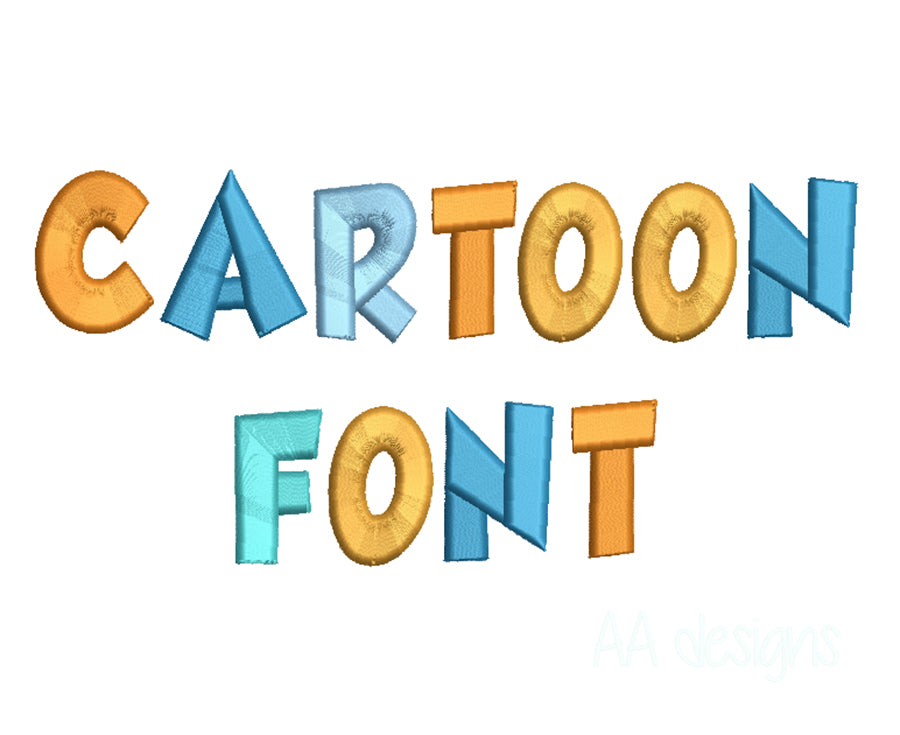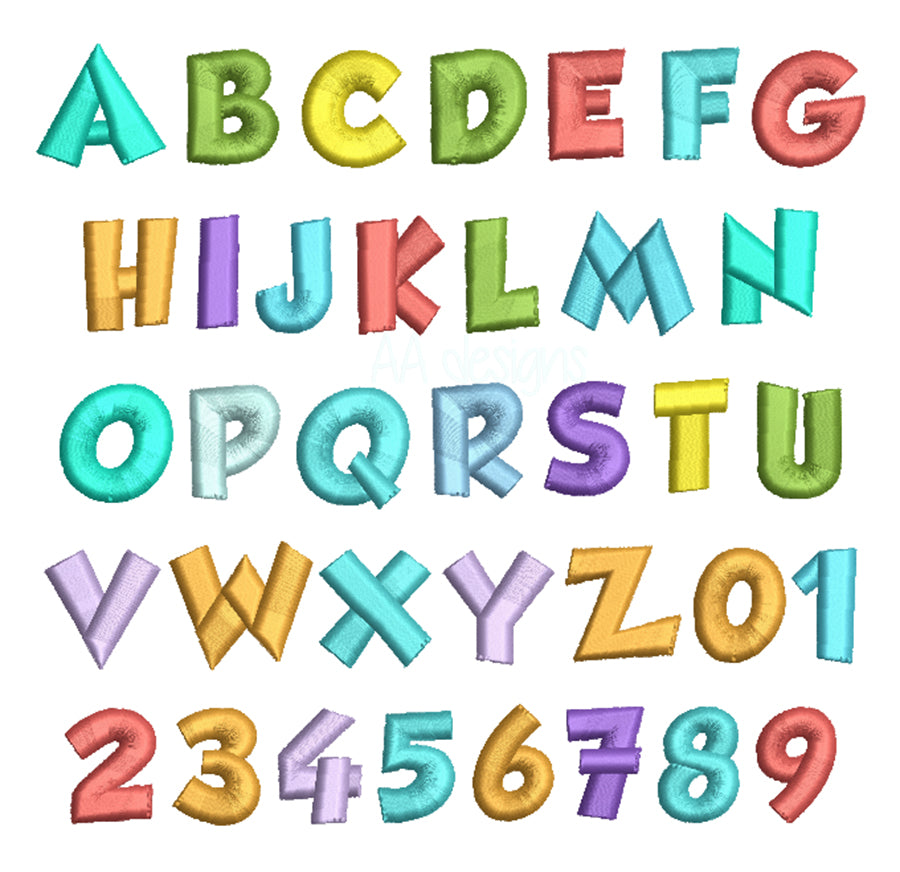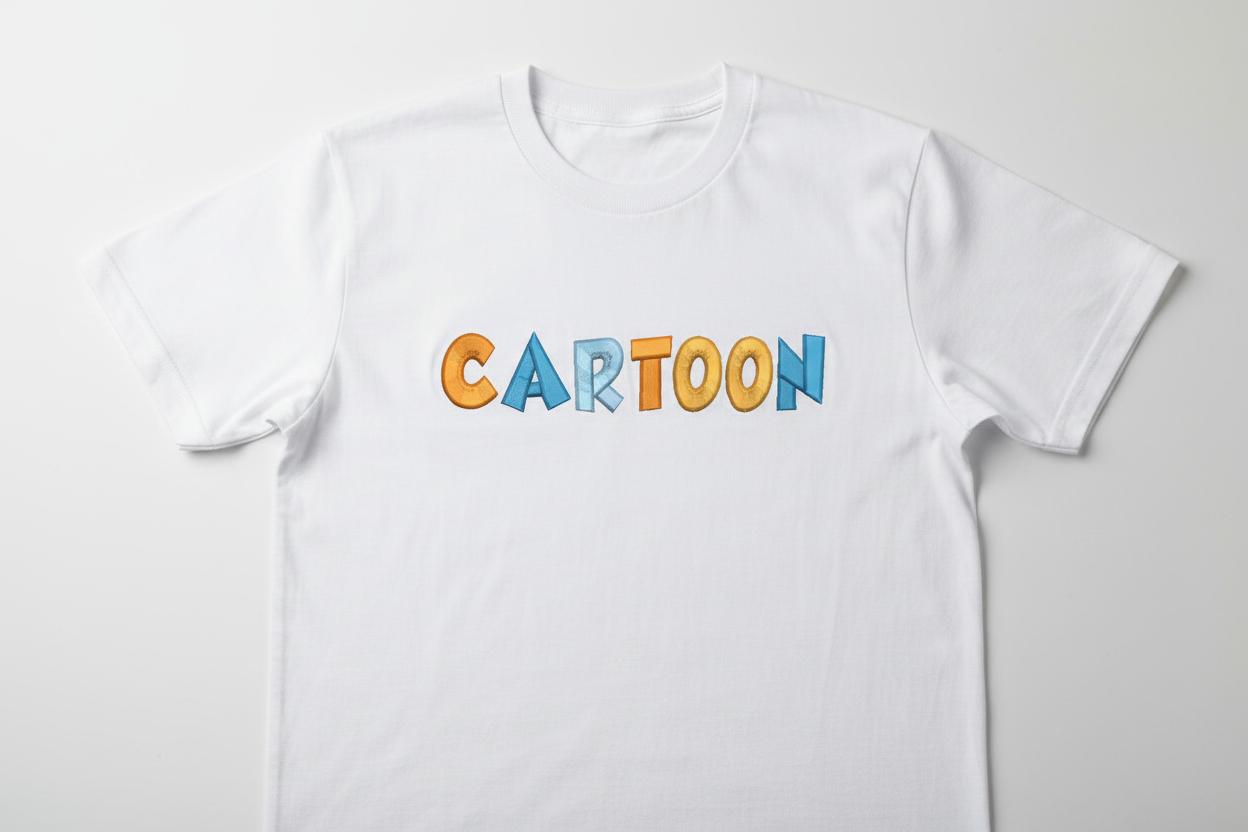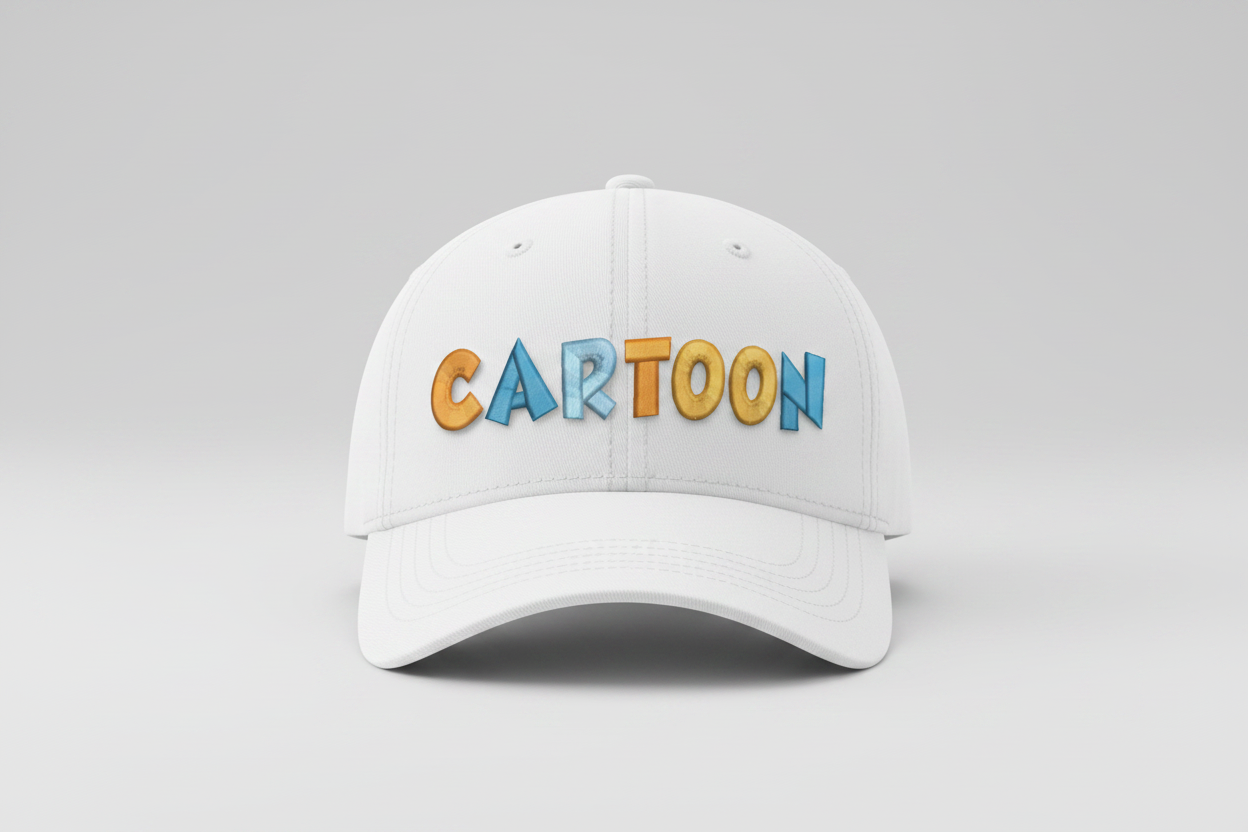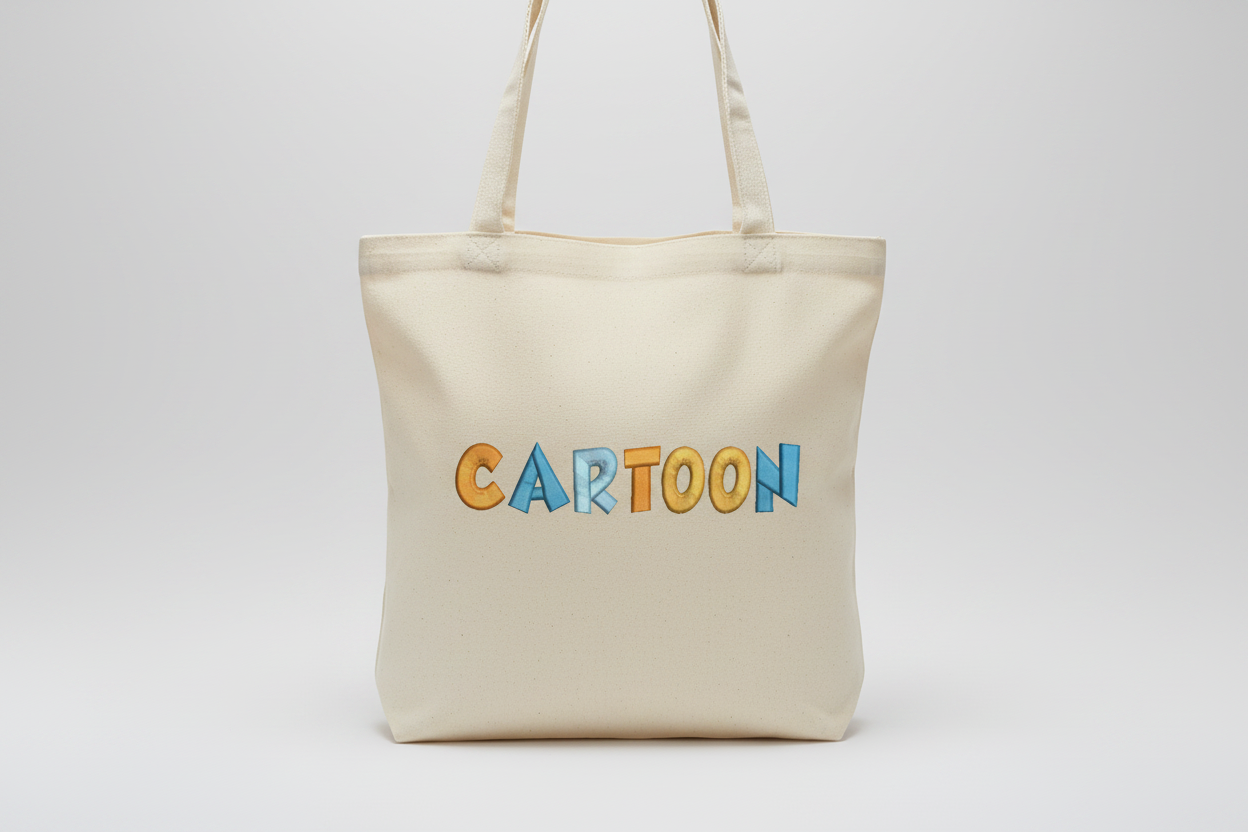
3D puff embroidery font. Cartoon embroidery font in 3D puff foam. BX format also inlcuded
- 3D puff embroidery design
- Great for caps, canvas tote bags, and t-shirts
This font comes with letters in 3 sizes, A-ZYou must use 3D puffy foam to achieve the 3D effect.
0.5”high
0.75” high
1” high